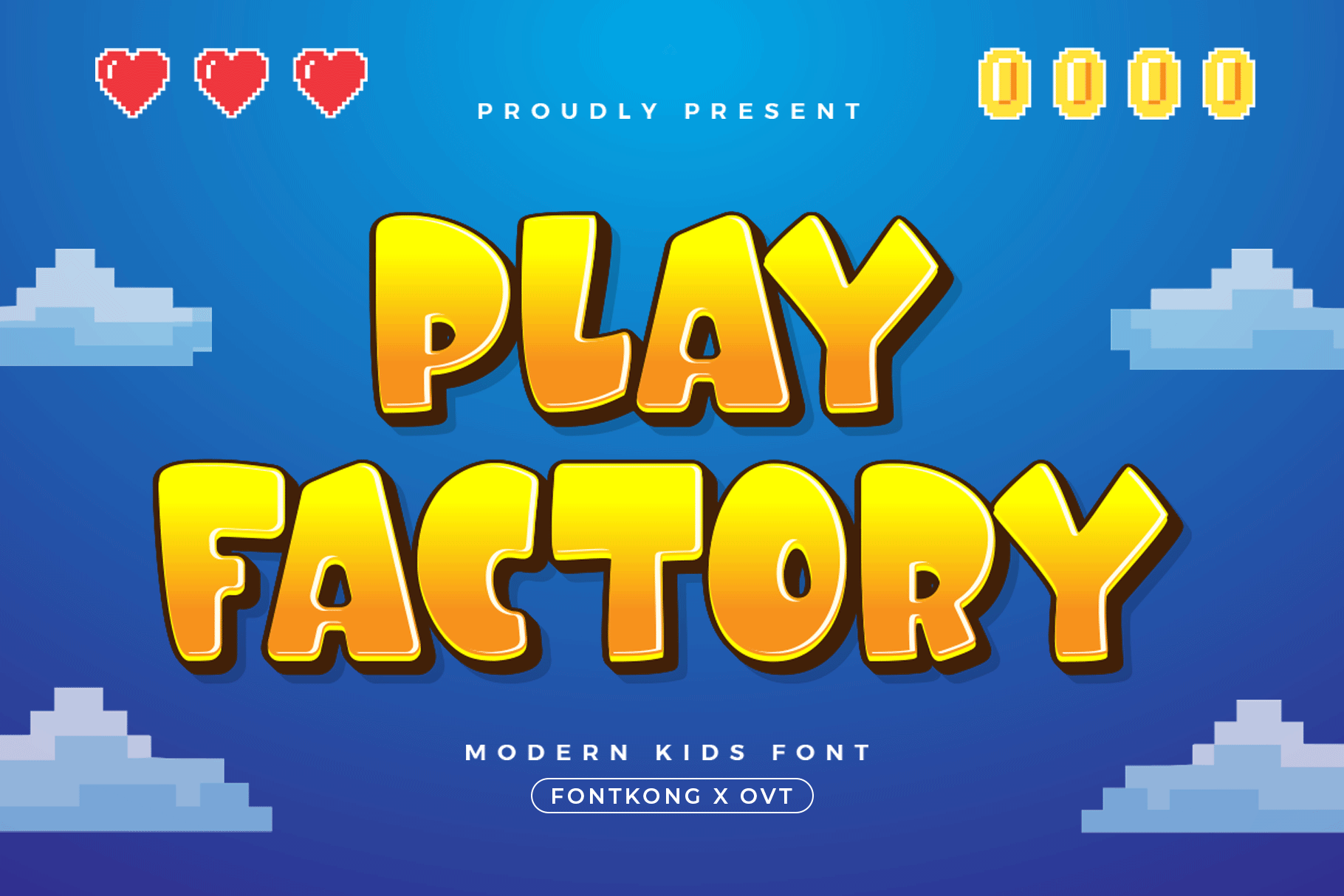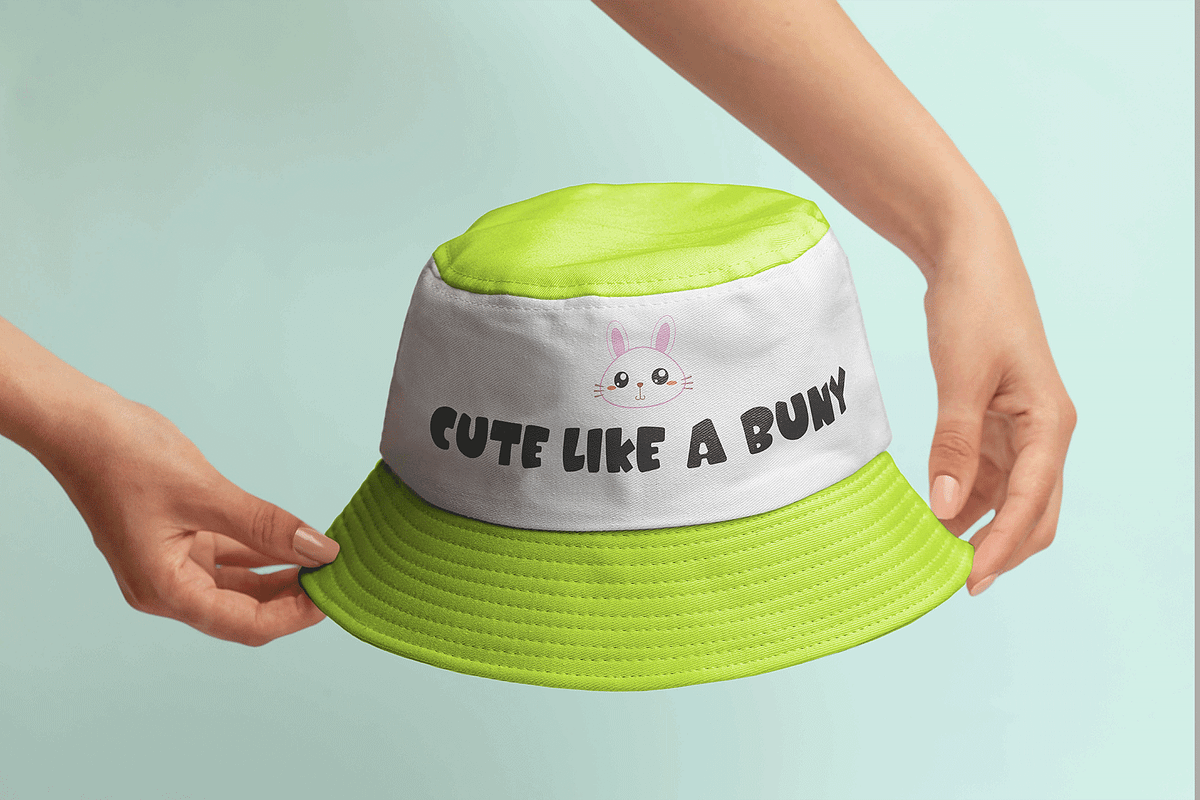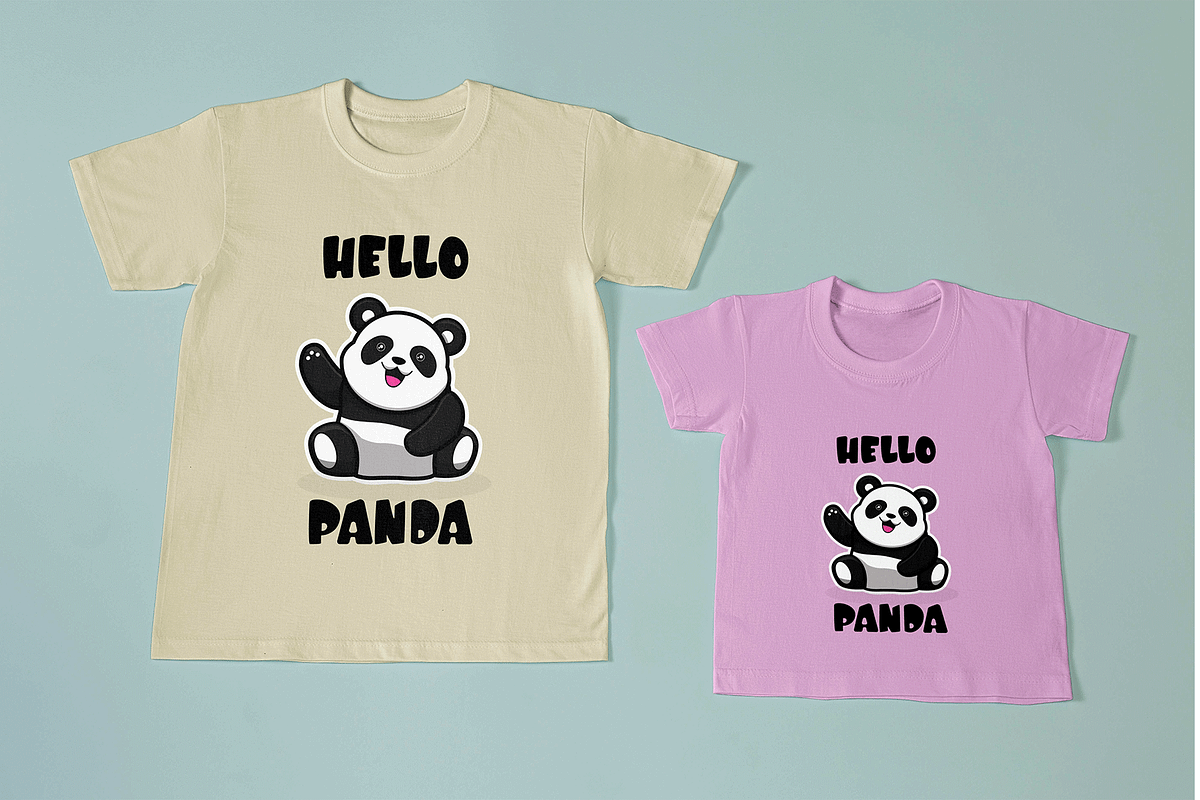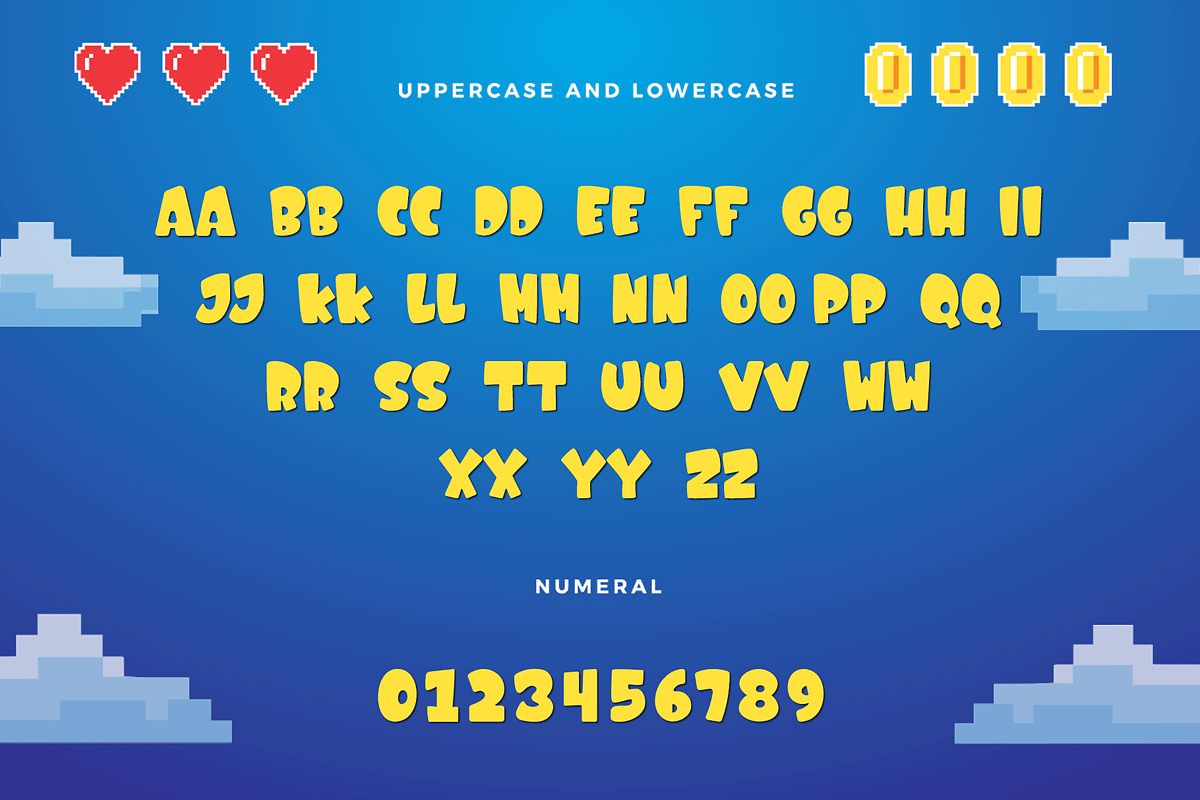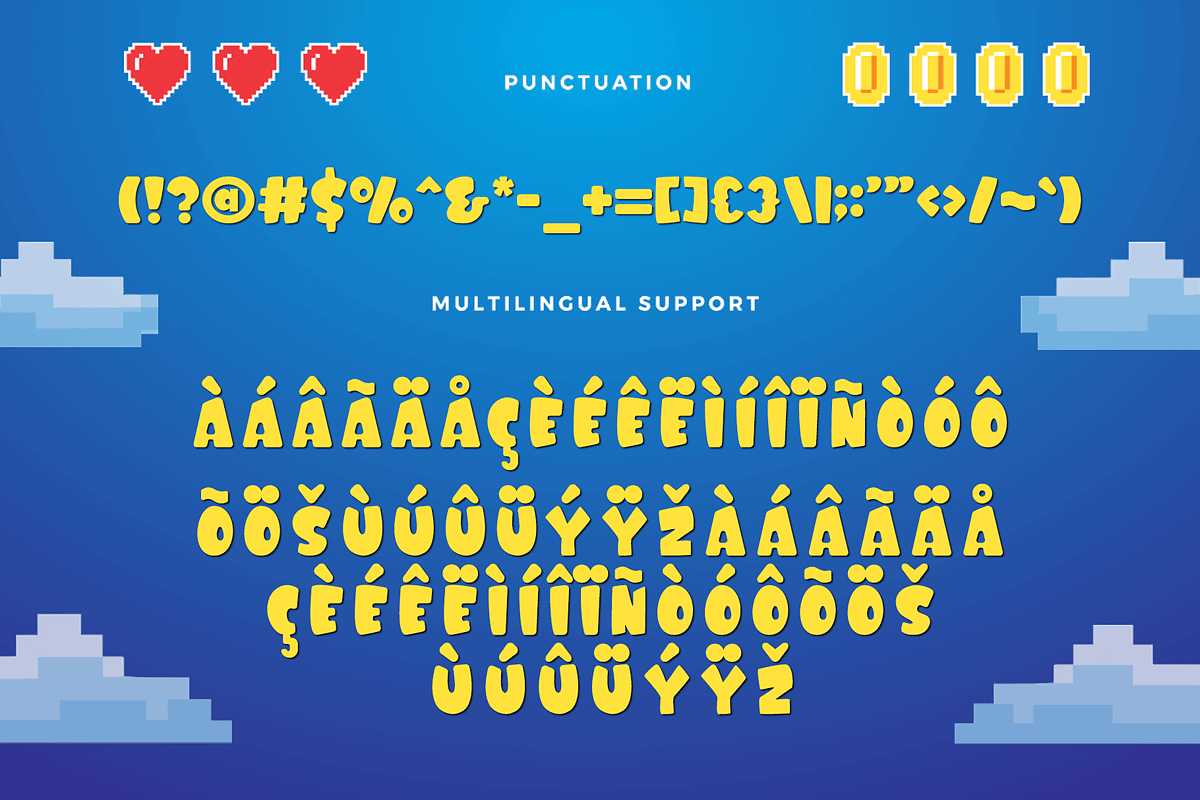
Play Factory - Modern Kids Font
Introducing "Play Factory," a modern kids font that brings whimsical fun and endless creativity to your design projects. Perfect for graphic designers, illustrators, and creatives working on child-centric designs, Play Factory offers a playful and vibrant typeface that captures the imagination of young audiences.
Ideal for children's books, educational materials, toys, packaging, and branding, Play Factory’s cheerful and engaging characters provide a lively and colorful aesthetic. Each letter is meticulously crafted to ensure readability and visual appeal, making your designs both delightful and memorable.
The "Play Factory" font includes a complete set of uppercase and lowercase letters, numbers, punctuation marks, and special characters. This comprehensive set ensures seamless integration into various design projects, from enchanting storybooks to eye-catching packaging.
Bring your designs to life with Play Factory, the modern kids font that infuses whimsical fun and endless creativity into every project.